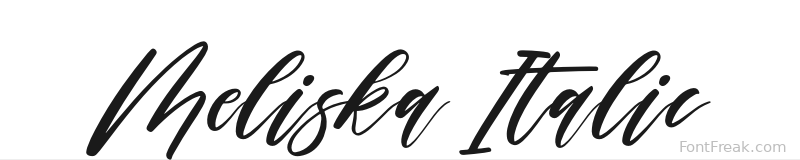
Meliska Italic
About Meliska Italic
Meliska Italic, designed by Perspectype Studio in 2021, is an elegant script font that captivates with its fluidity and artistic flair. This font features a graceful, handwritten style characterized by its smooth curves and flowing lines. The stroke weight varies subtly, providing a pleasing contrast that enhances its visual appeal. Each letter is meticulously crafted, with ample spacing that ensures readability while maintaining an inviting, organic feel. The cursive nature of Meliska Italic is enhanced by decorative elements, making it perfect for adding a touch of sophistication to any project.
The versatility of Meliska Italic allows it to shine in various applications. It is particularly well-suited for wedding invitations, where its romantic style can elevate the overall aesthetic. Additionally, it works beautifully on greeting cards, offering a personal touch that resonates with recipients. Restaurant menus can also benefit from the font's charm, as it adds a warm, inviting atmosphere that complements culinary offerings. For those in the creative industry, Meliska Italic is an excellent choice for branding materials, giving logos and promotional items a distinctive flair. Content creators will find it ideal for social media graphics, where engaging visuals are paramount.
In a sea of fonts, Meliska Italic stands out for its harmonious blend of sophistication and approachability. Its artistic flair and versatility make it a valuable addition to any designer’s toolkit, ensuring that your next project will leave a lasting impression. Embrace the Meliska Italic font free download and elevate your designs today.